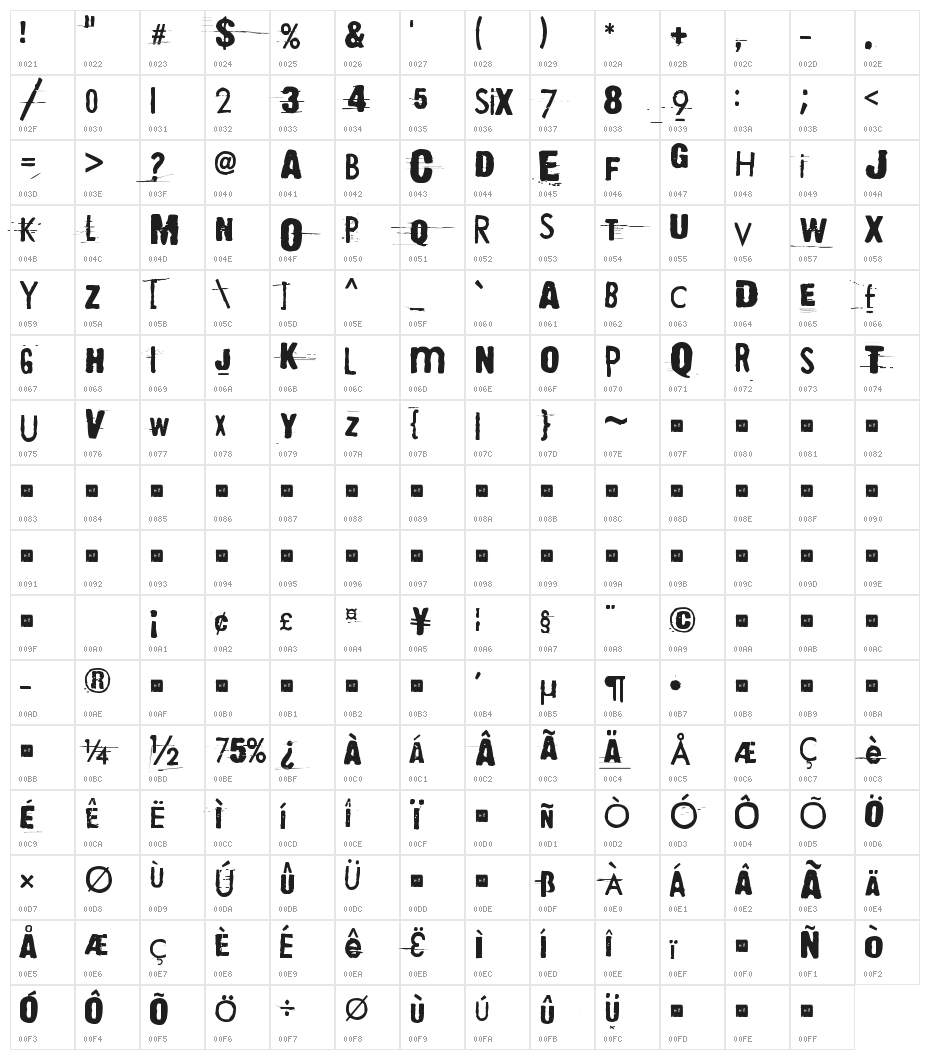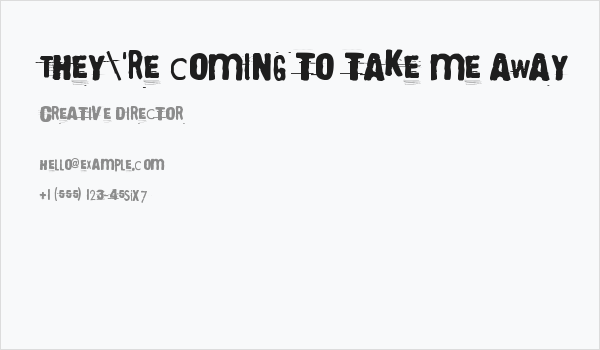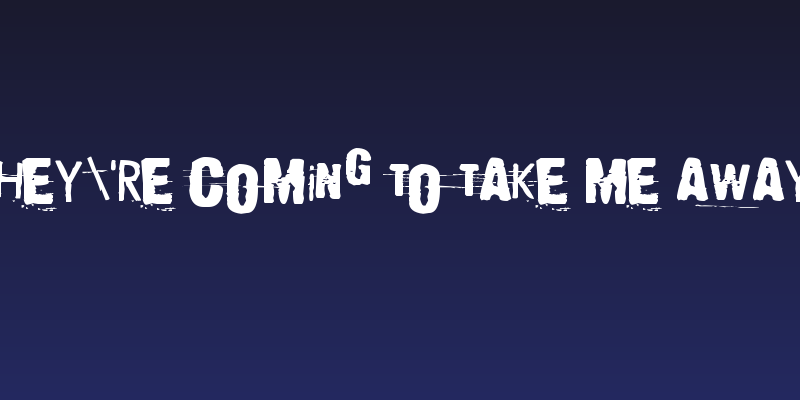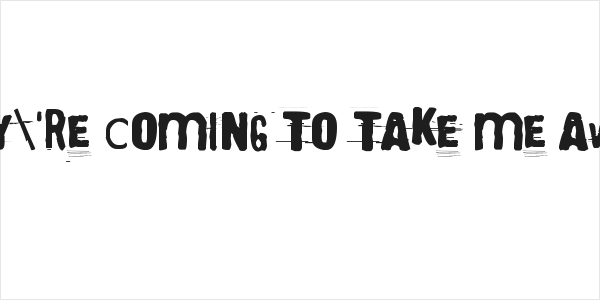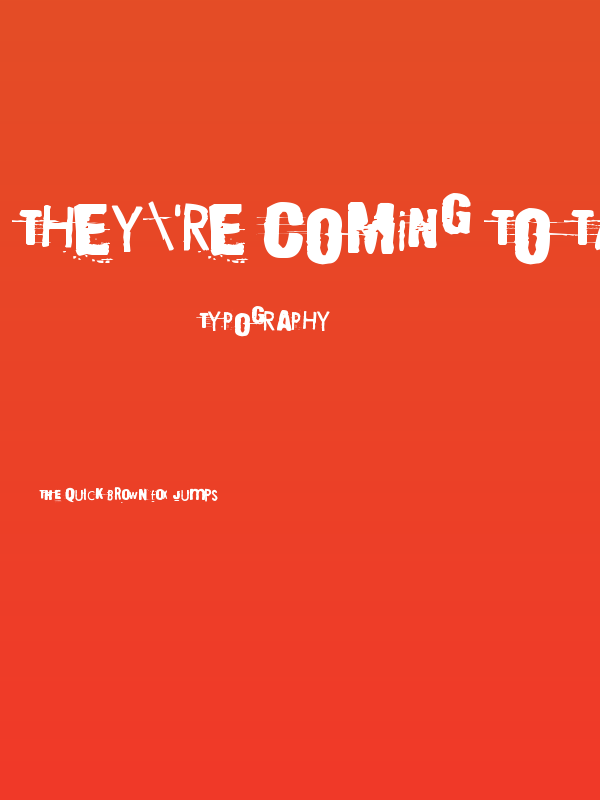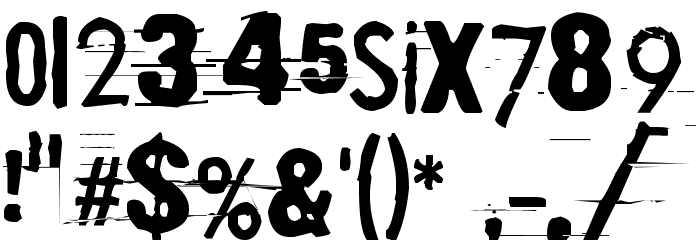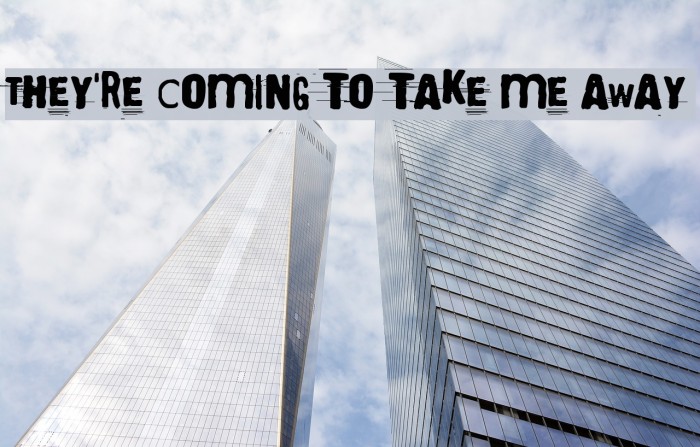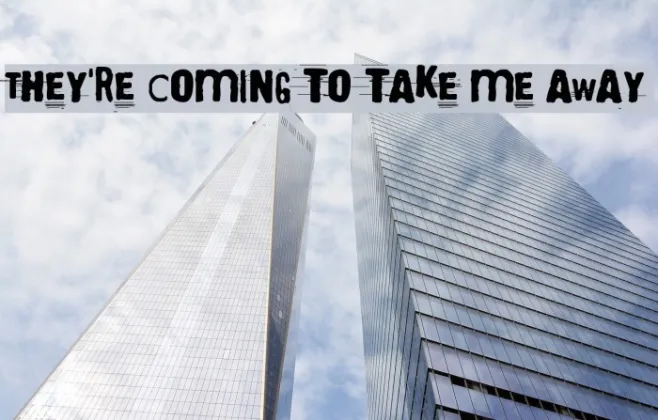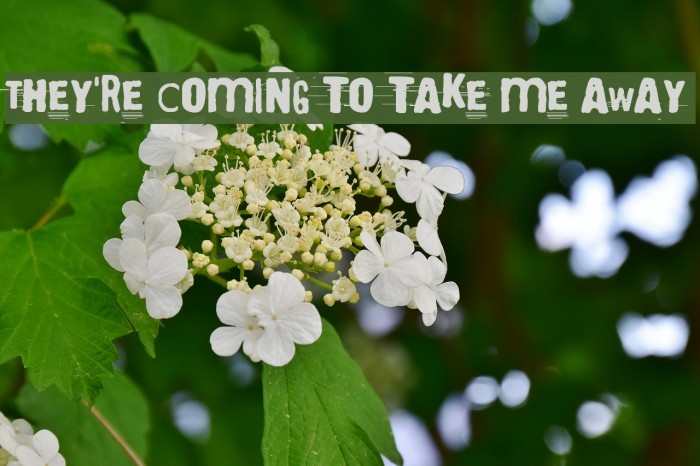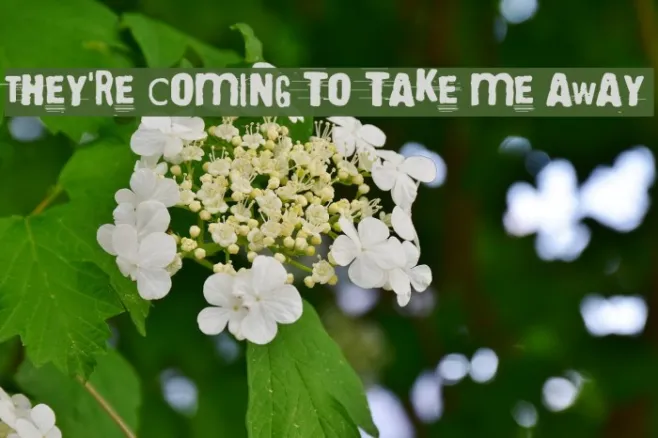
They're coming to take me away Font
✎ Distorted Eroded
| Catégories | Distorted Eroded |
| Style général | Grunge, Edgy, Distressed |
| Cas d'utilisation | Headlines, Posters, Artistic Designs |
| Projets proposés | Ideal for music album covers, edgy posters, rebellious branding, and creative artwork. |